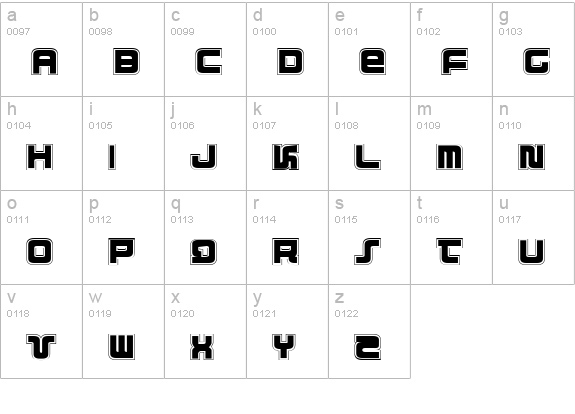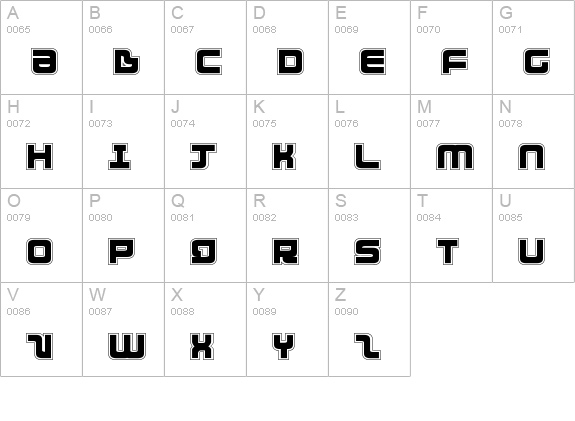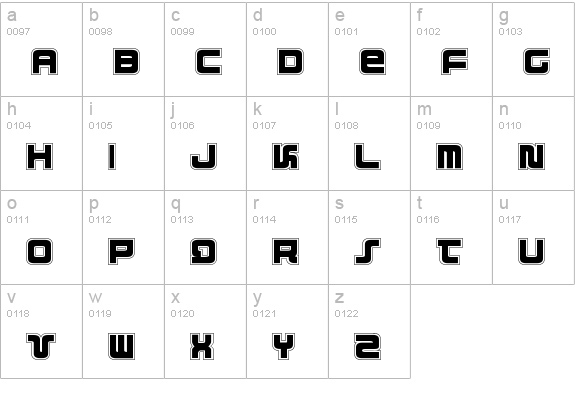
Direktor Academy is a modern and stylish font that exudes professionalism and sophistication. Its clean lines and sharp edges make it perfect for a wide range of design projects, from business cards to posters. This versatile font is sure to make your text stand out and grab the attention of your audience. What makes Direktor Academy even more appealing is that it is completely free to download. That's right, you can easily access this high-quality font at FontsMarket.com without spending a dime. Whether you are a designer looking to add a touch of elegance to your work or a business owner aiming to create a strong brand identity, Direktor Academy is a fantastic choice that won't break the bank. Download it today and elevate your design projects with this exceptional font.